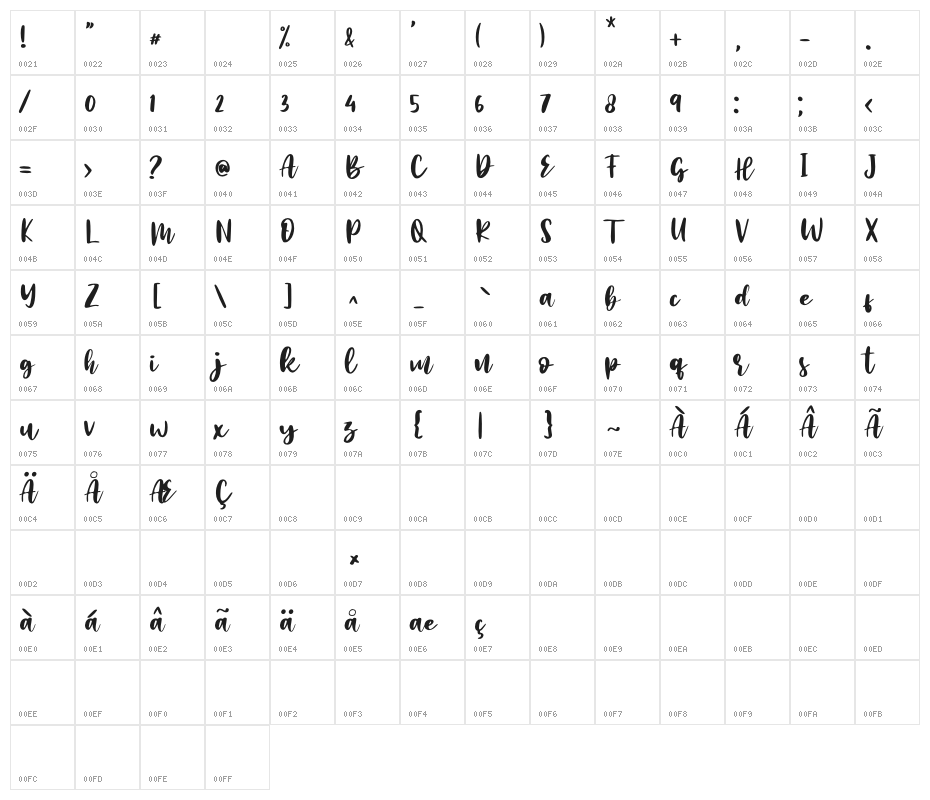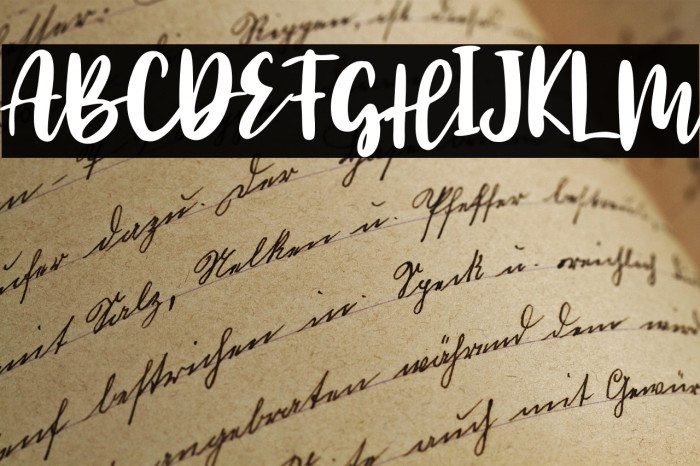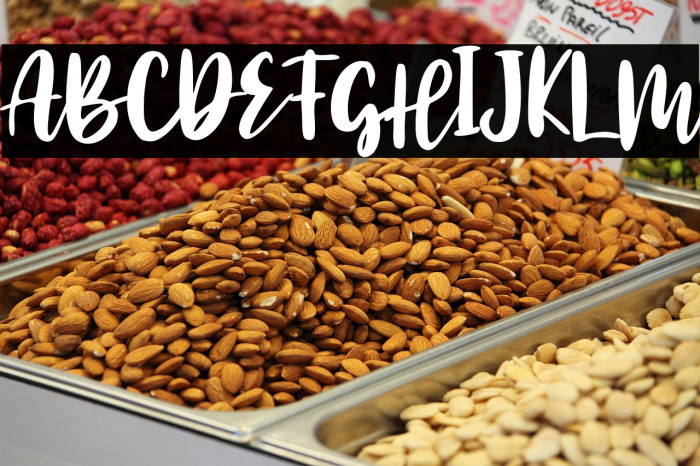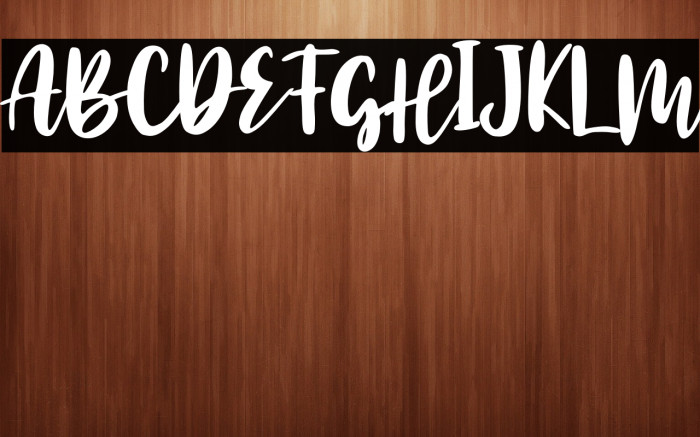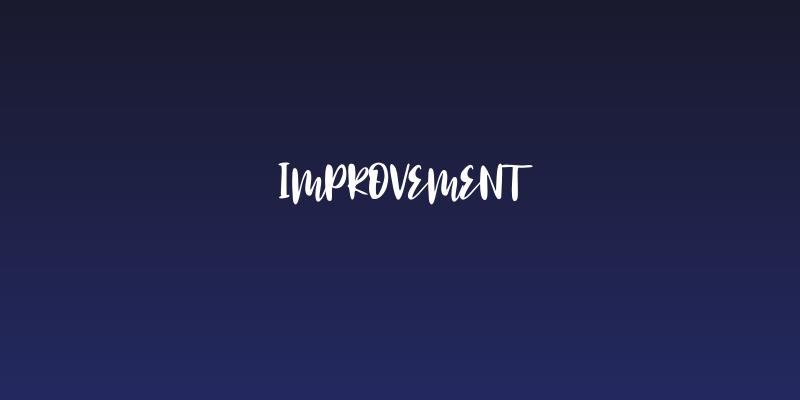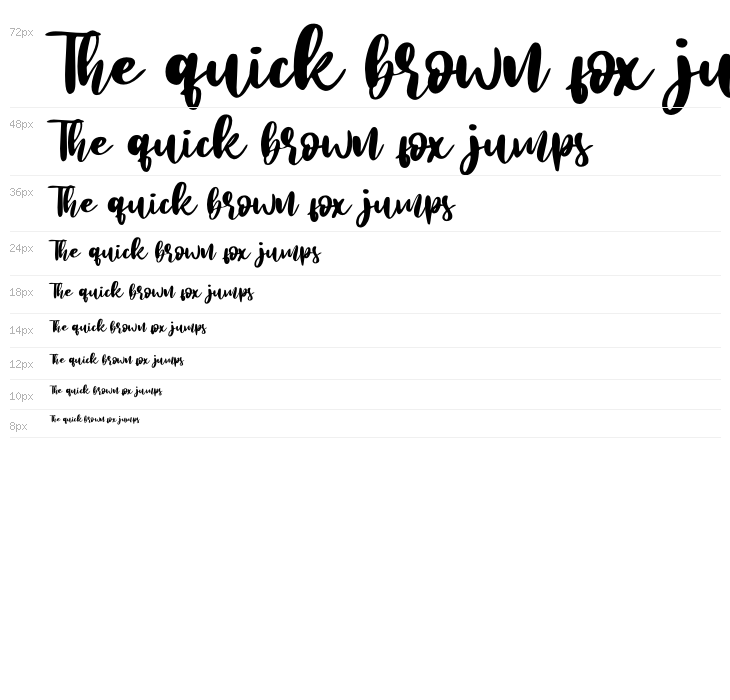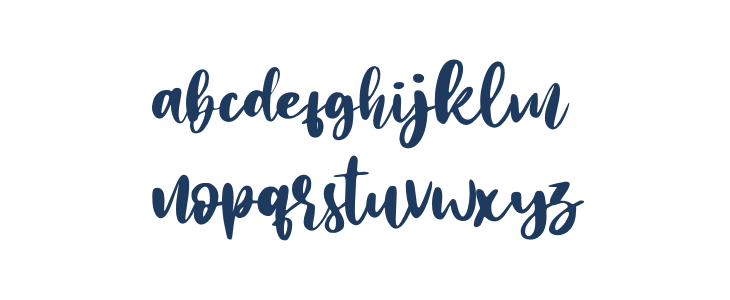
Improvement Font
Improvement Description
This font exhibits a bold and expressive handwritten style, characterized by its fluid and dynamic strokes. The uppercase letters are tall and slightly condensed, giving a sense of elegance and flair. The lowercase letters maintain a consistent flow, with some letters featuring distinctive loops and curves that add to the font's charm. Numbers are clear and bold, matching the overall style of the alphabet. Special characters are creatively designed, maintaining the playful and artistic essence of the font. This typeface is perfect for projects that require a personal and artistic touch.
| Proposed Projects | Ideal for greeting cards, invitations, branding, and social media graphics. |